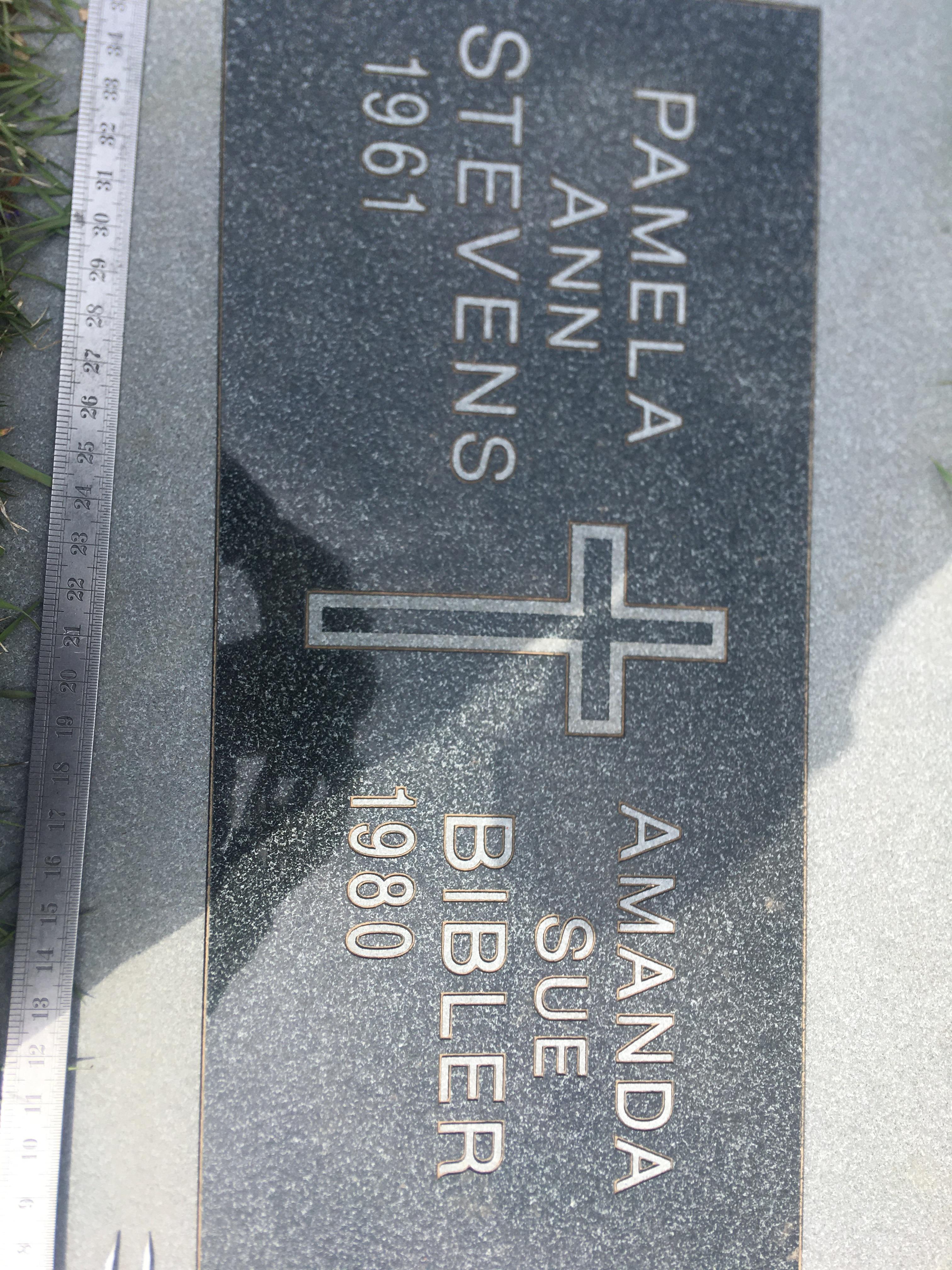
Font help please.. x
Hello Jill, this appears to be Helvetica for the names, and Helvetica Condensed for the dates. It also looks like the Bold or Black weight may have been used, with an inline instead of an outline, giving it a narrower feel. However, it is possible that the Regular weight was used with an outline, but it would take some playing with it to figure out the exact versions.